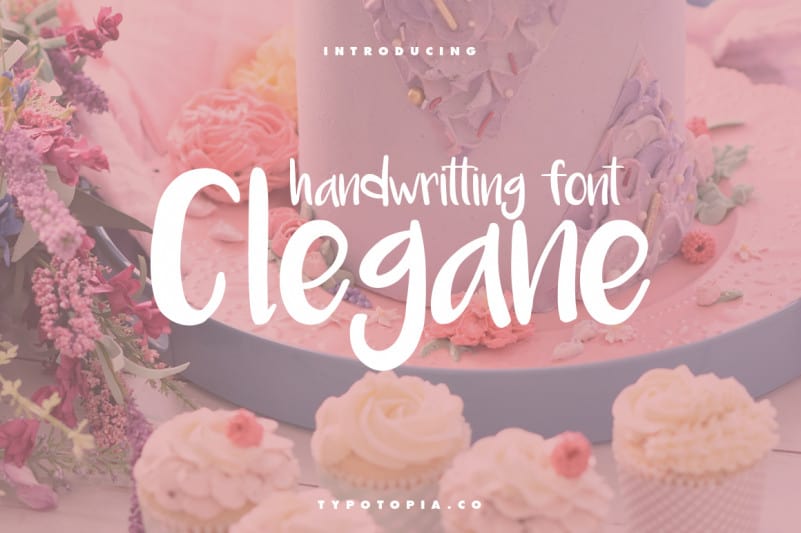
Clegane Script Font
Clegane Script Font is a sweet and romantic hand-drawn font. Fall in love with its incredibly versatile style and use it to create gorgeous wedding invitations, beautiful stationary art, eye-catching social media posts, and much more!